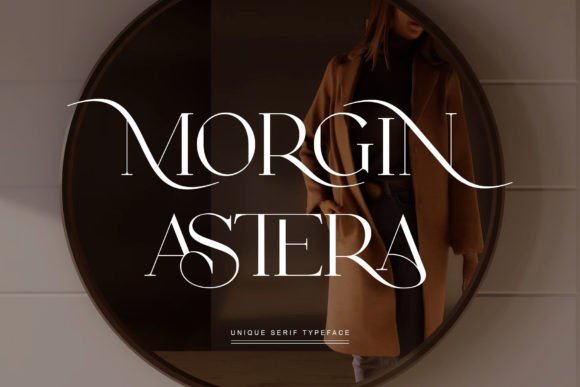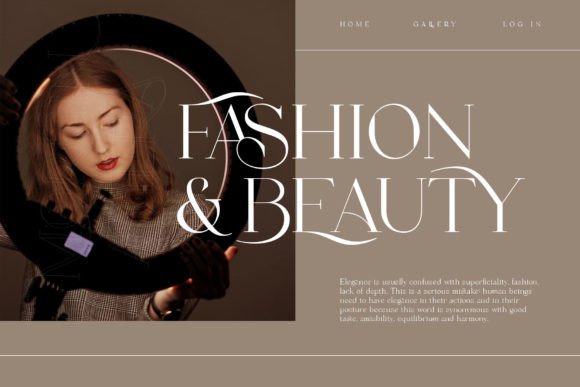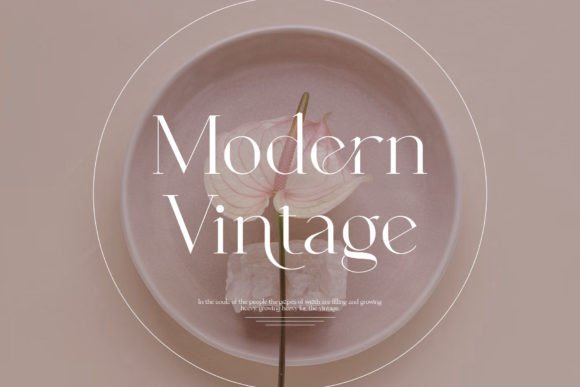
Morgin Astera Font
About the Morgin Astera Font
Crafted with precision, the Morgin Astera Font is ready to bring your ideas to life. **MORGIN ASTERA FONT** is inspired by the famous minimalist logo perfect for the purposes of designing templates, brochures, videos, advertising branding, logos, invitation, layout design, elegant crafting, beautiful design, and more.
Morgin Astera’s clean lines and minimalist aesthetic make it ideal for headlines, logos, and short-form text in branding materials and advertising. It excels in creating a sophisticated and modern feel for high-end products or services. However, its delicate stroke weight makes it less suitable for body text or UI elements where readability is paramount.
The font’s personality is undeniably elegant and refined. Its restrained character pairs well with complementary sans-serif fonts like Open Sans or Lato for a balanced, contemporary look. For a more luxurious feel, consider pairing it with a classic serif like Garamond or a subtle script font such as Great Vibes.
Avoid using Morgin Astera for lengthy content or applications requiring high legibility at small sizes. Its strength lies in impactful short statements, making it a powerful tool for creating a memorable visual identity.
Morgin Astera Font Usage Examples
Morgin Astera Font Example